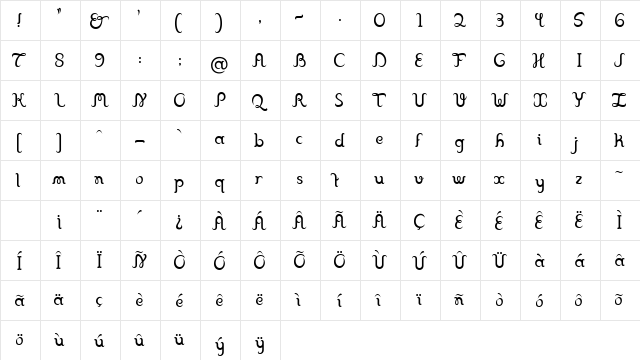
Franklin Cascaes Regular
| Foundry | Saulo Deboni, Mirian Mitsue Yanai & Silvia Cristina Medeiros |
| Designer | Saulo Deboni, Mirian Mitsue Yanai & Silvia Cristina Medeiros |
Design Context for Franklin Cascaes Typeface
Franklin Cascaes is a composed and adaptable typeface that performs quietly and consistently across a wide range of design contexts.